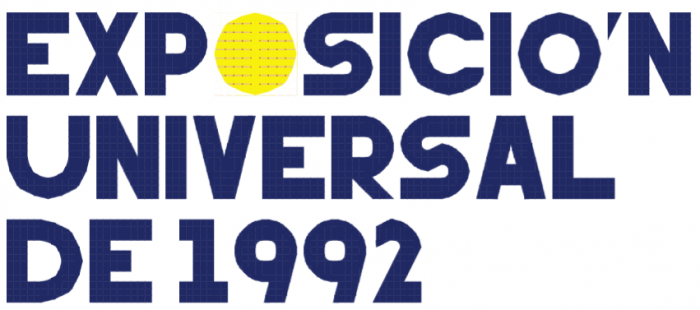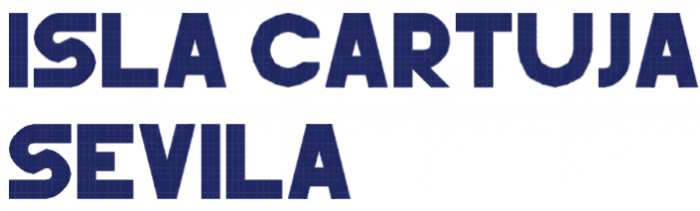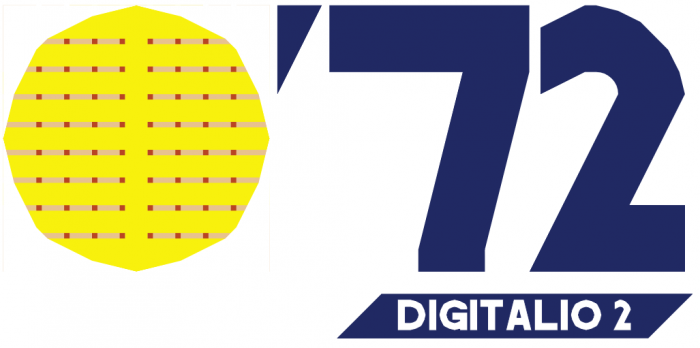
The Universal Exhibition of Seville 1992 – Expo '92 (officially: Exposición Universal de Sevilla 1992) was a universal exhibition held from Monday 20 April to Monday 12 October 1992, at the Isla de La Cartuja, in Seville, Spain. The theme for the expo was "The Age of Discoveries", celebrating the 500th anniversary of Christopher Columbus reaching the Americas, and over 100 countries were represented. The site of the exposition covered 215 hectares (530 acres) and the total number of visitors was 41,814,571. The exposition ran at the same time as the smaller and shorter-duration Genoa Expo '92, a Specialized Exhibition, held in memory of Christopher Columbus in Genoa.
Use the @ sign for the EXPO'92 Logo. and use Private Use Area for UNO Cards.
i know how the logo looks like, the font is a recreation of the font in the logo, typing out [EXP@'92_] is an approximate for the logo, and the uno cards are already in pua-